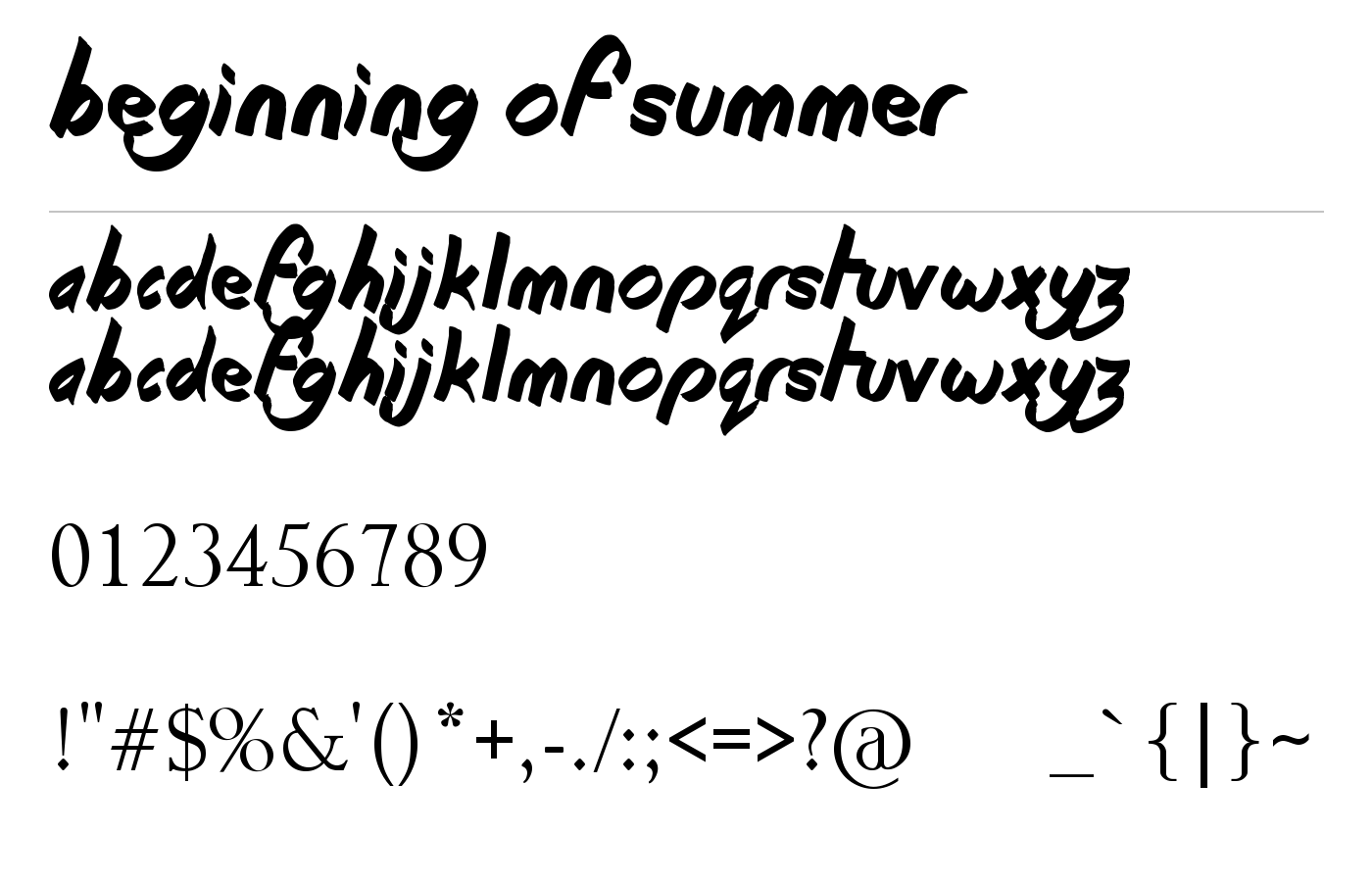
Beginning of Summer is a lively, handwritten-style font with a bold, playful character and irregular, flowing strokes that give it a casual, organic feel. Its tall, slightly condensed letterforms with distinctive curves and lively movement make it well-suited for creative, informal designs such as branding, posters, and invitations where a friendly, approachable vibe is desired. This font brings energy and personality, adding a fresh, artistic touch to projects looking for spontaneity and warmth.
Beginning of Summer Font